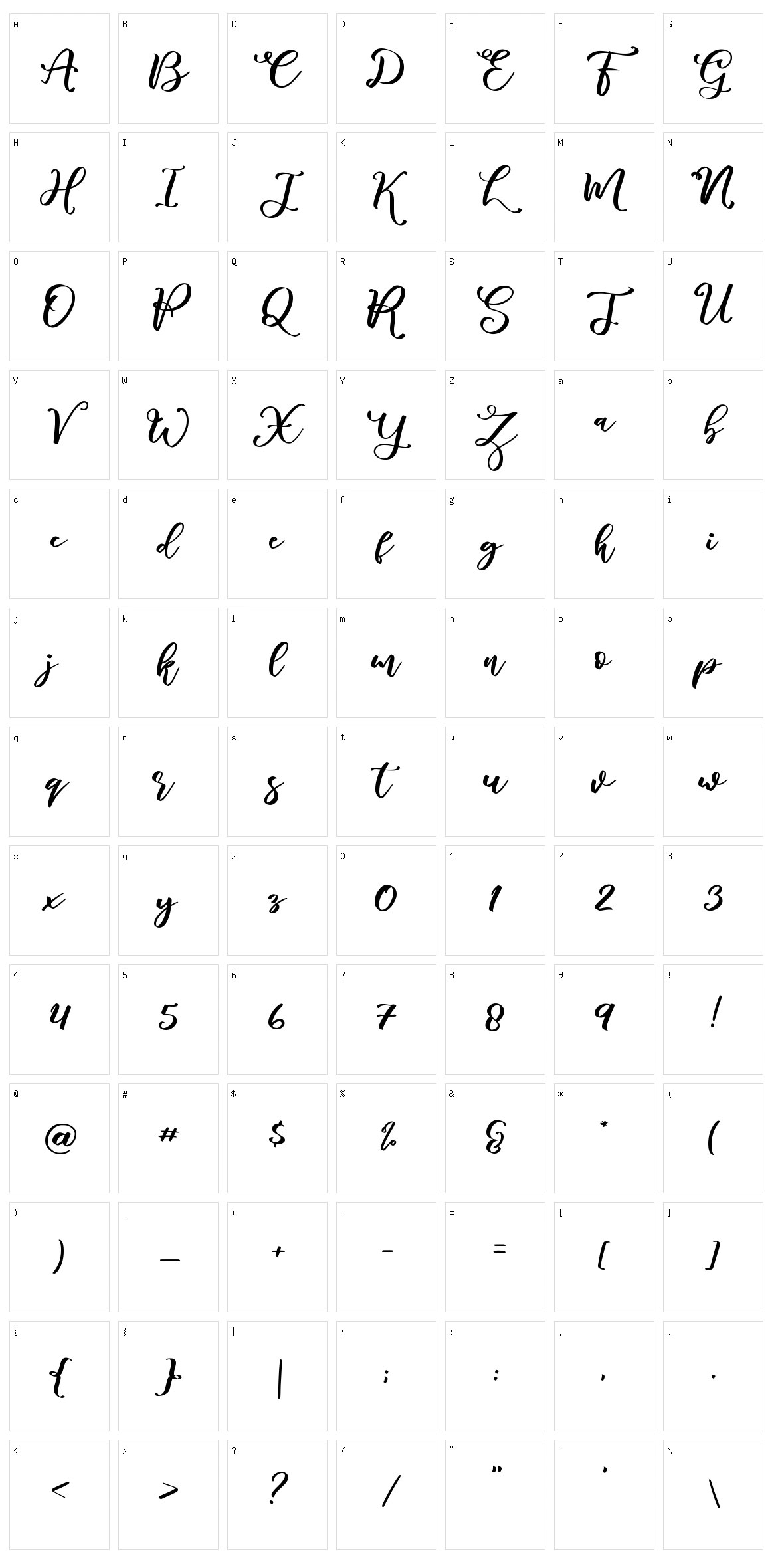
The free font Marlita is carefully designed by Abo Daniel Studio, showcasing a thoughtful balance of creativity and usability and falls under the Script font style. When you download the ZIP file, it contains only 34.91 KB of font files, making it lightweight and quick to download. Please review the license details below to understand permitted usage and distribution rights. If license information is not available, we recommend using this font for personal projects only or contacting the author directly for commercial usage permissions.